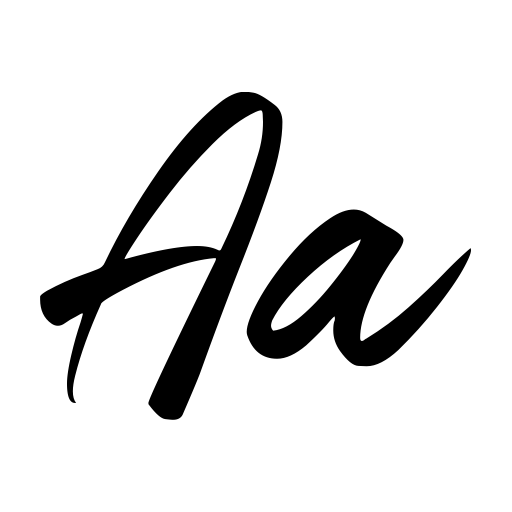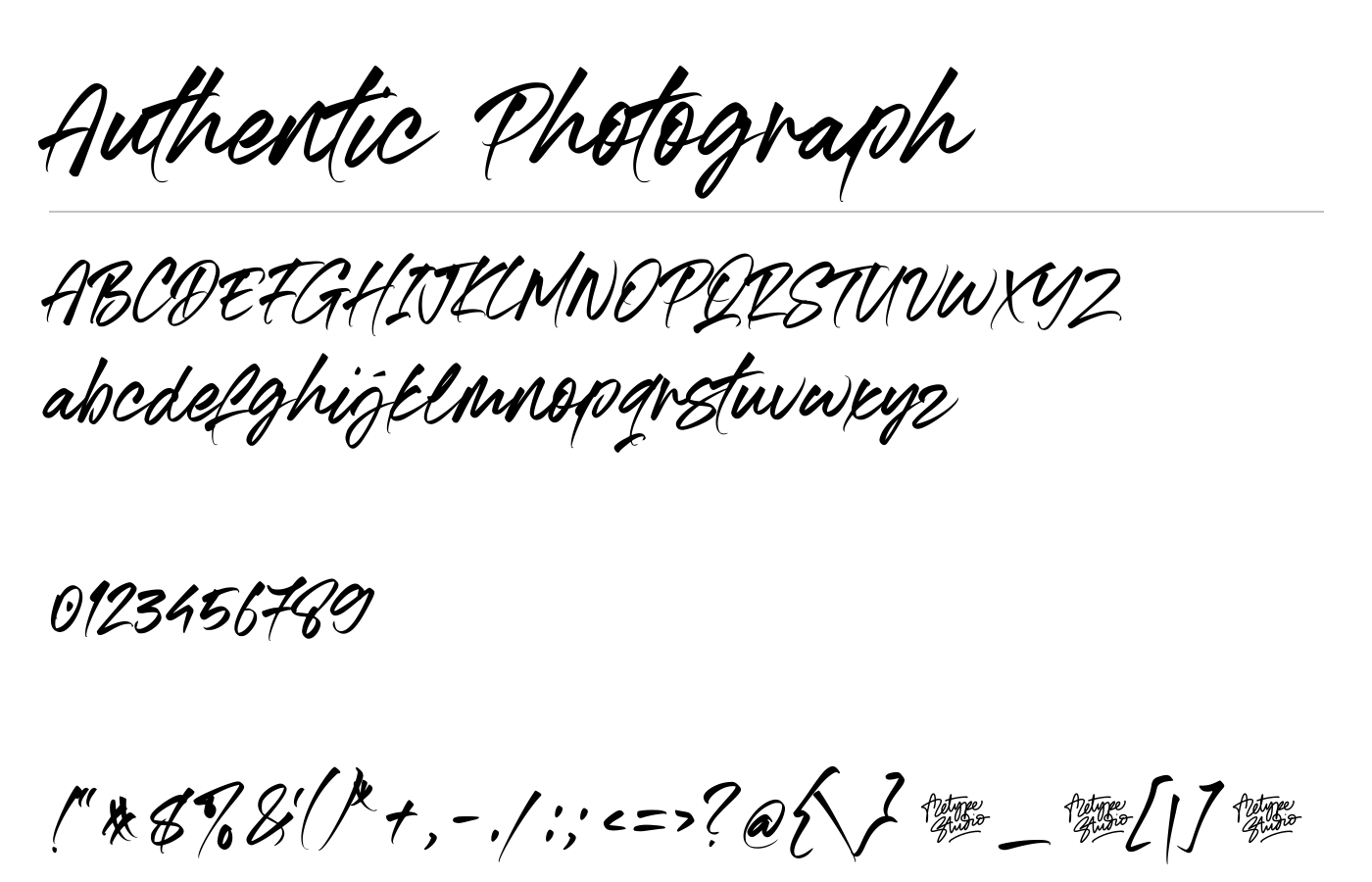
Authentic Photograph is a lively, script-style font that mimics natural handwriting with its smooth, flowing strokes and varying line thickness. It feels personal and artistic, making it ideal for creative projects like branding, invitations, and social media where a genuine, handcrafted touch is desired. The font’s elegant yet approachable style suits artistic, lifestyle, and boutique brands looking to convey warmth and authenticity.
Authentic Photograph Font